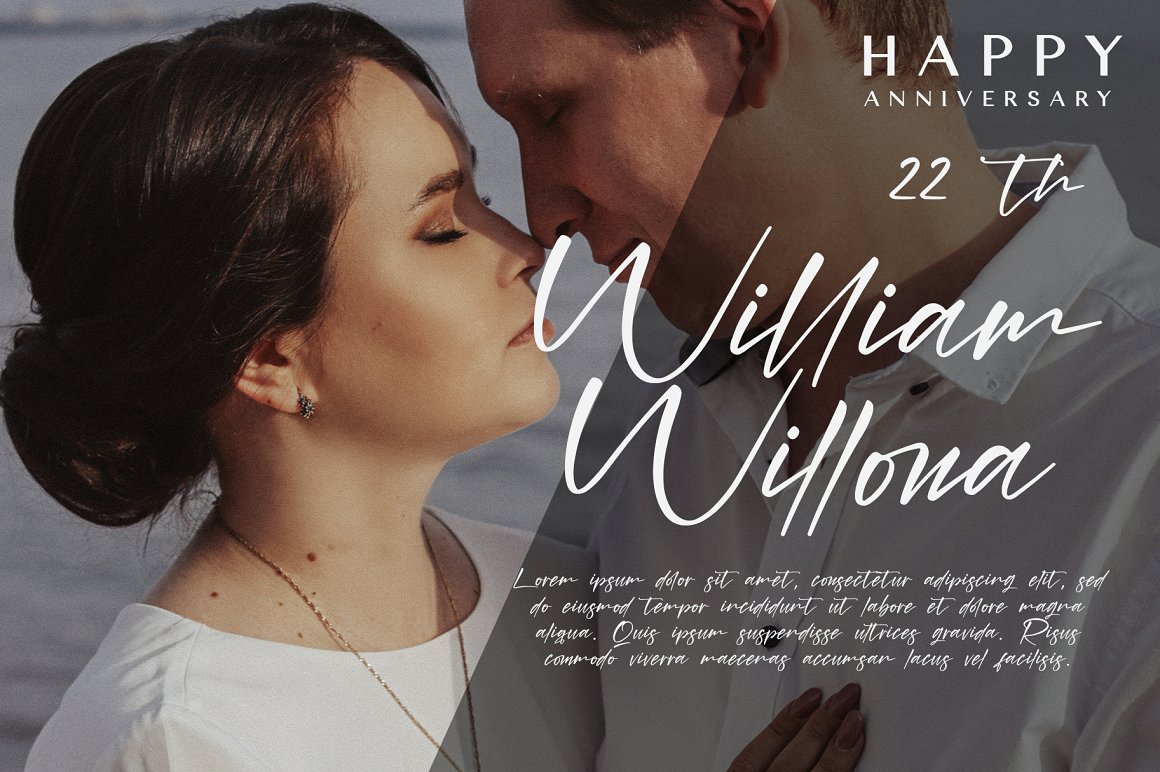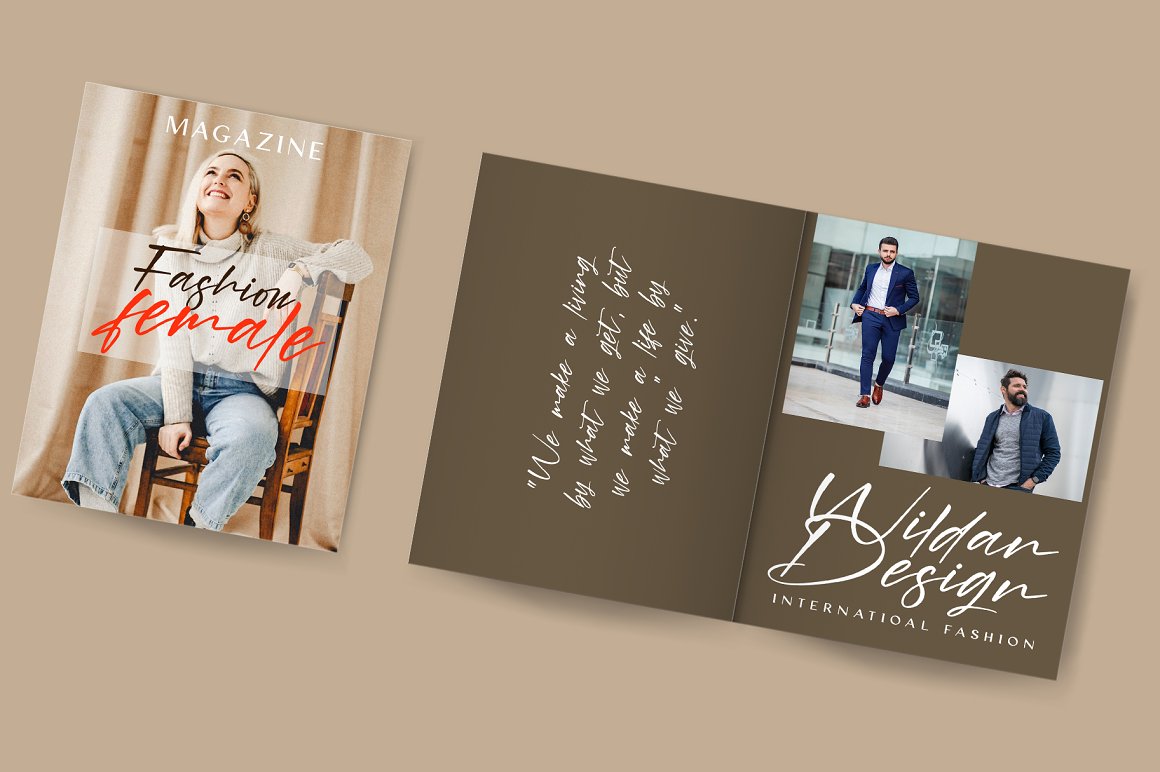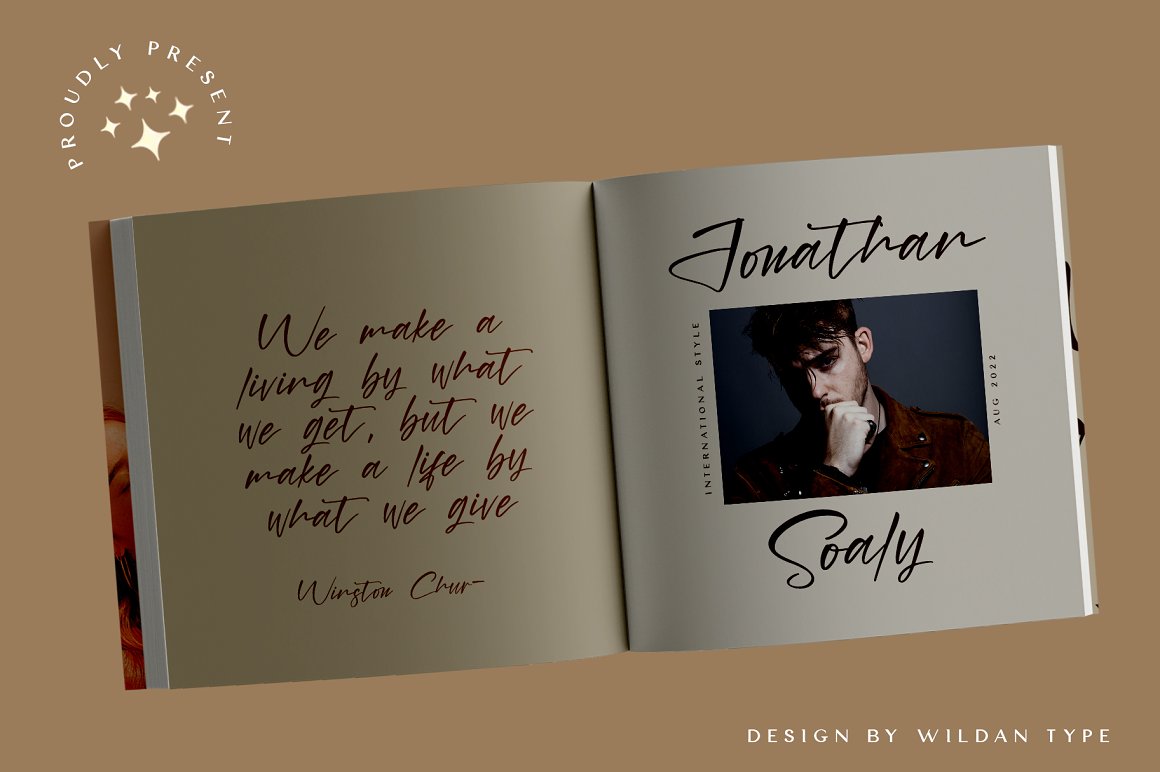
Young Generation Font
Young Generation Script Font
This is signature font. The shape is modern and unique and the writing style is very natural. You can create many beautiful typographic designs in an instant like branding, web design and editorial, prints, crafts, quotes.